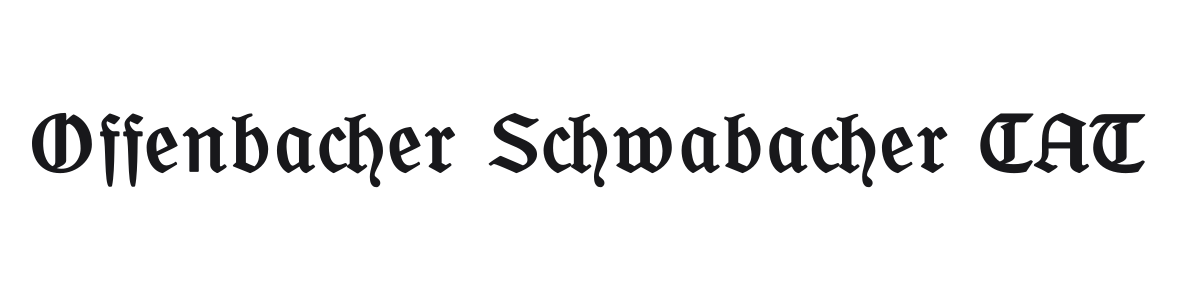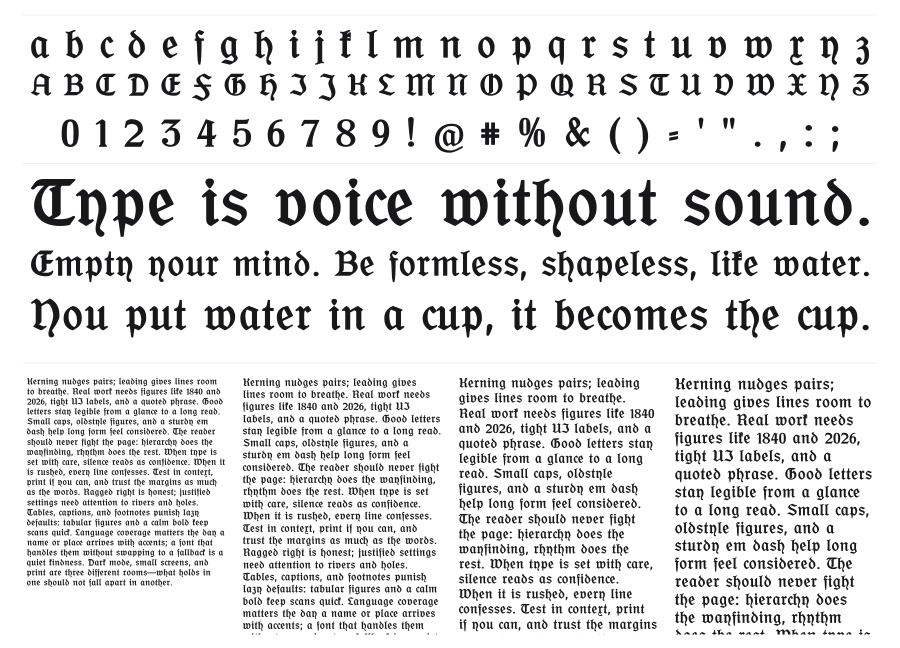
Offenbacher Schwabacher CAT
Offenbacher Schwabacher CAT is a revival of the Schwabacher style, the dominant blackletter form in German printing before Fraktur took over in the 16th century. Its bold weight, diamond terminals, and sharply angled strokes give it real typographic authority without the spindlier fragility of Textura. The result reads as distinctly historical but confident enough for modern poster and branding work.